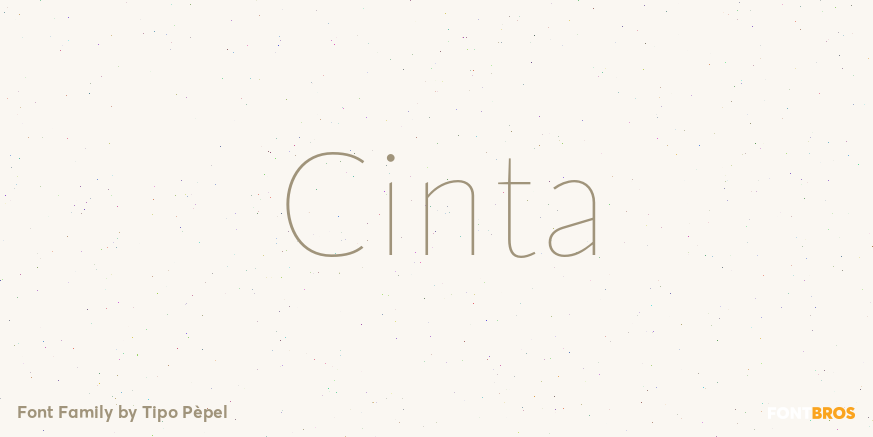
Cinta
About Cinta
We are really happy to introduce you to Cinta, a brand new elegant sans serif font designed for text. It has a humanistic skeleton, dressed up with a hand-made mechanical suit, which made it rush, audacious. A dedicated tribute to the breakdown of mestizo…